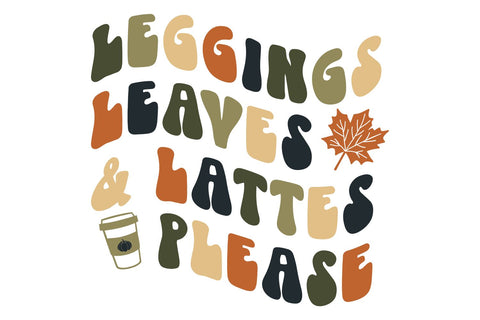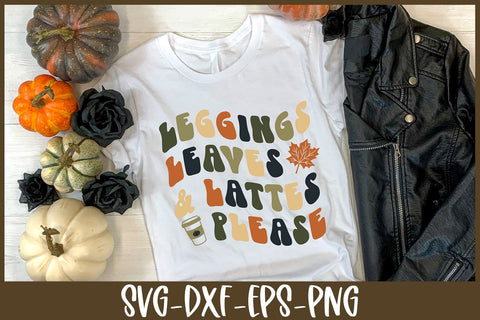
Leggings Leaves and Lattes Please | Fall Quote SVG
This fun, retro fall design looks great on a shirt or tote bag! The file types included are perfect for cut file projects like vinyl and HTV, and also other printing projects.